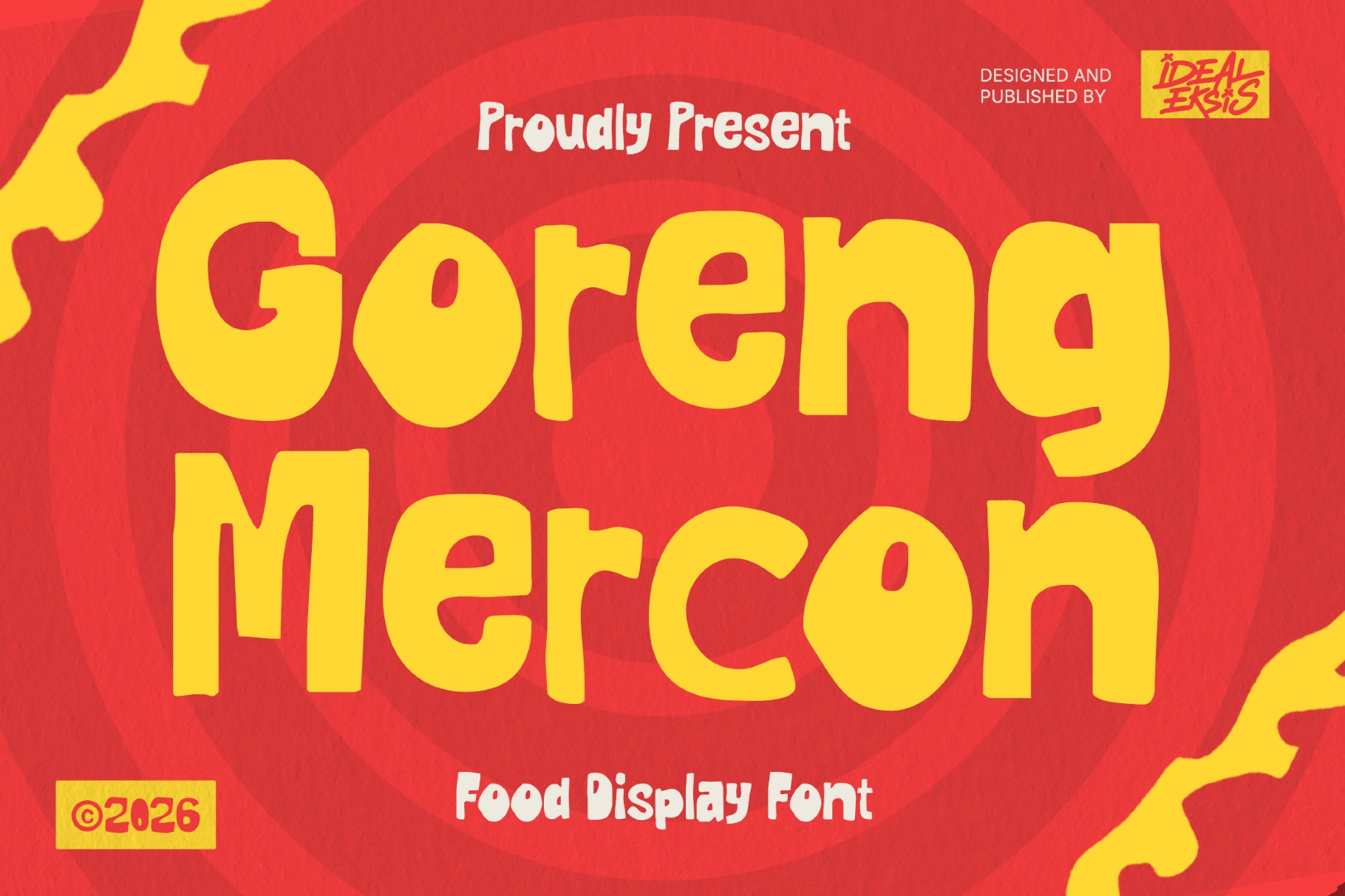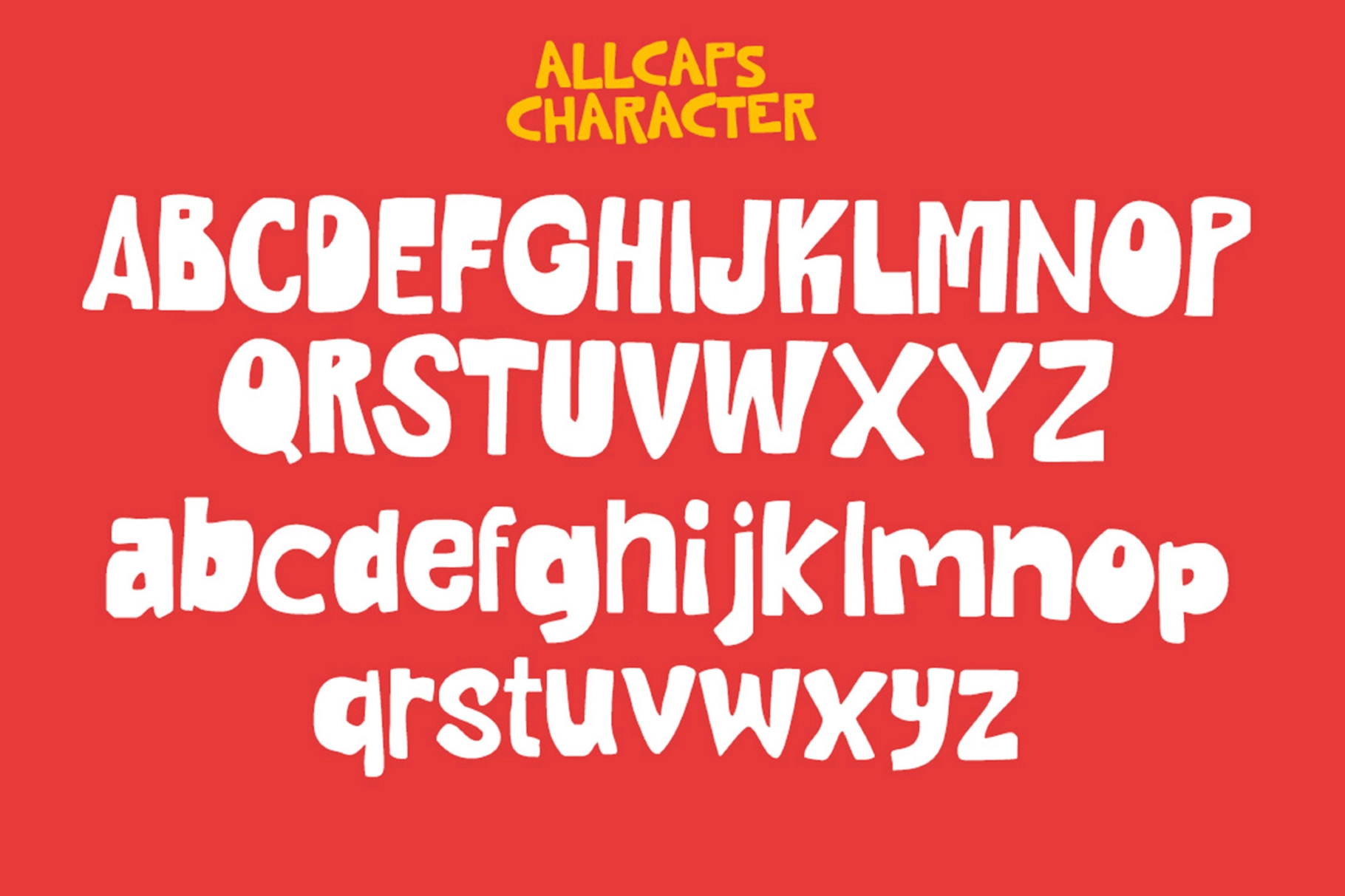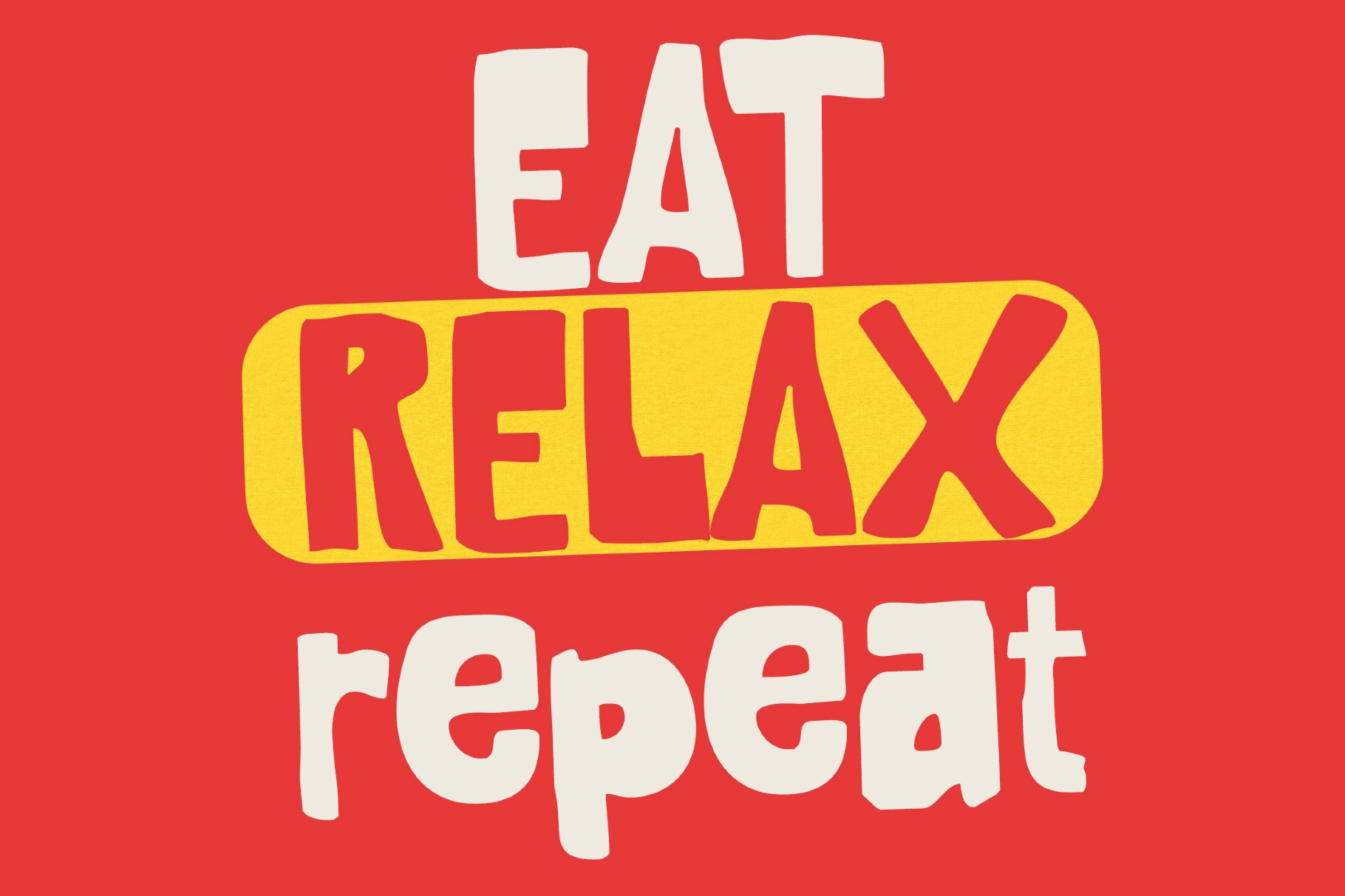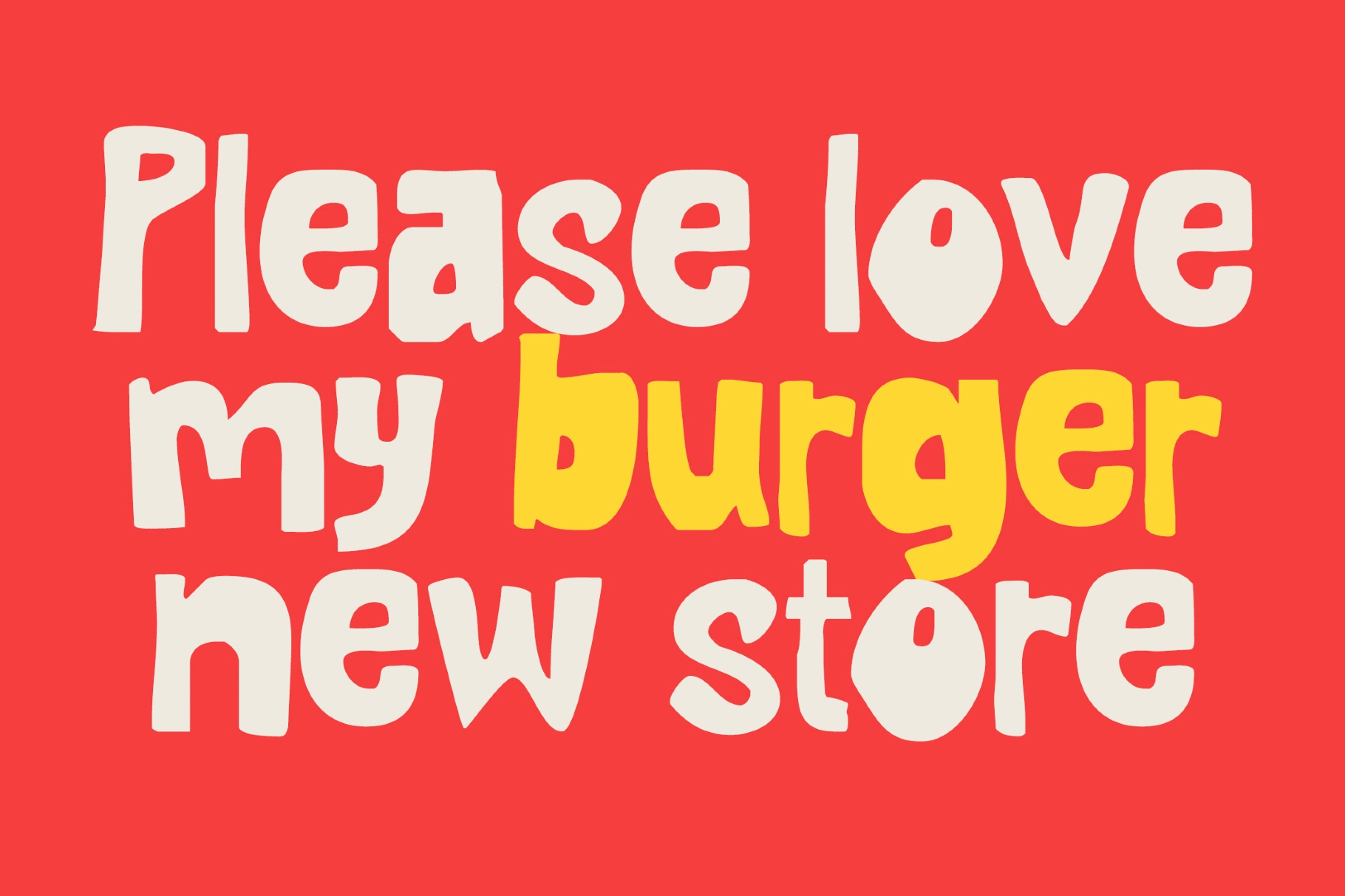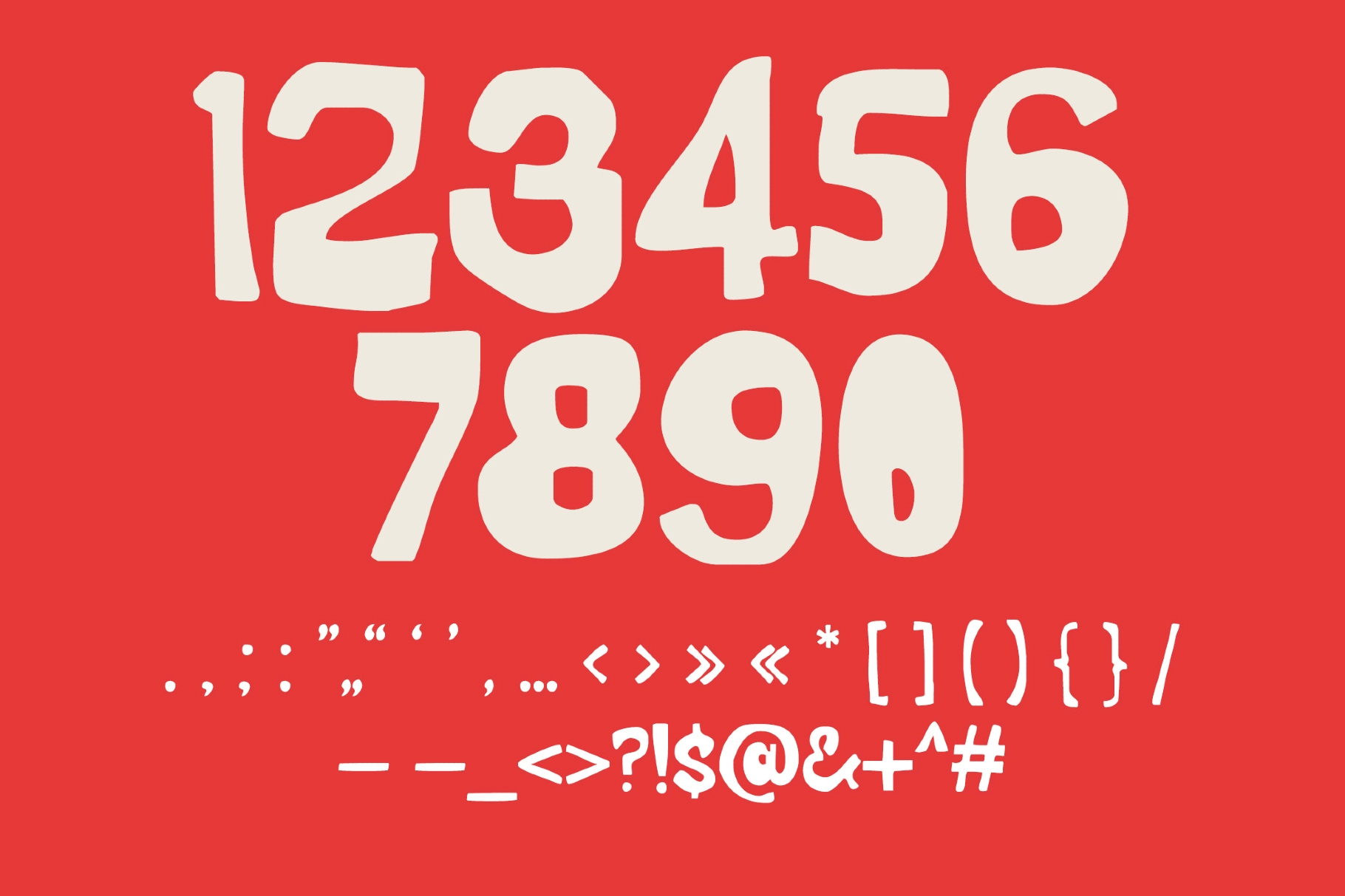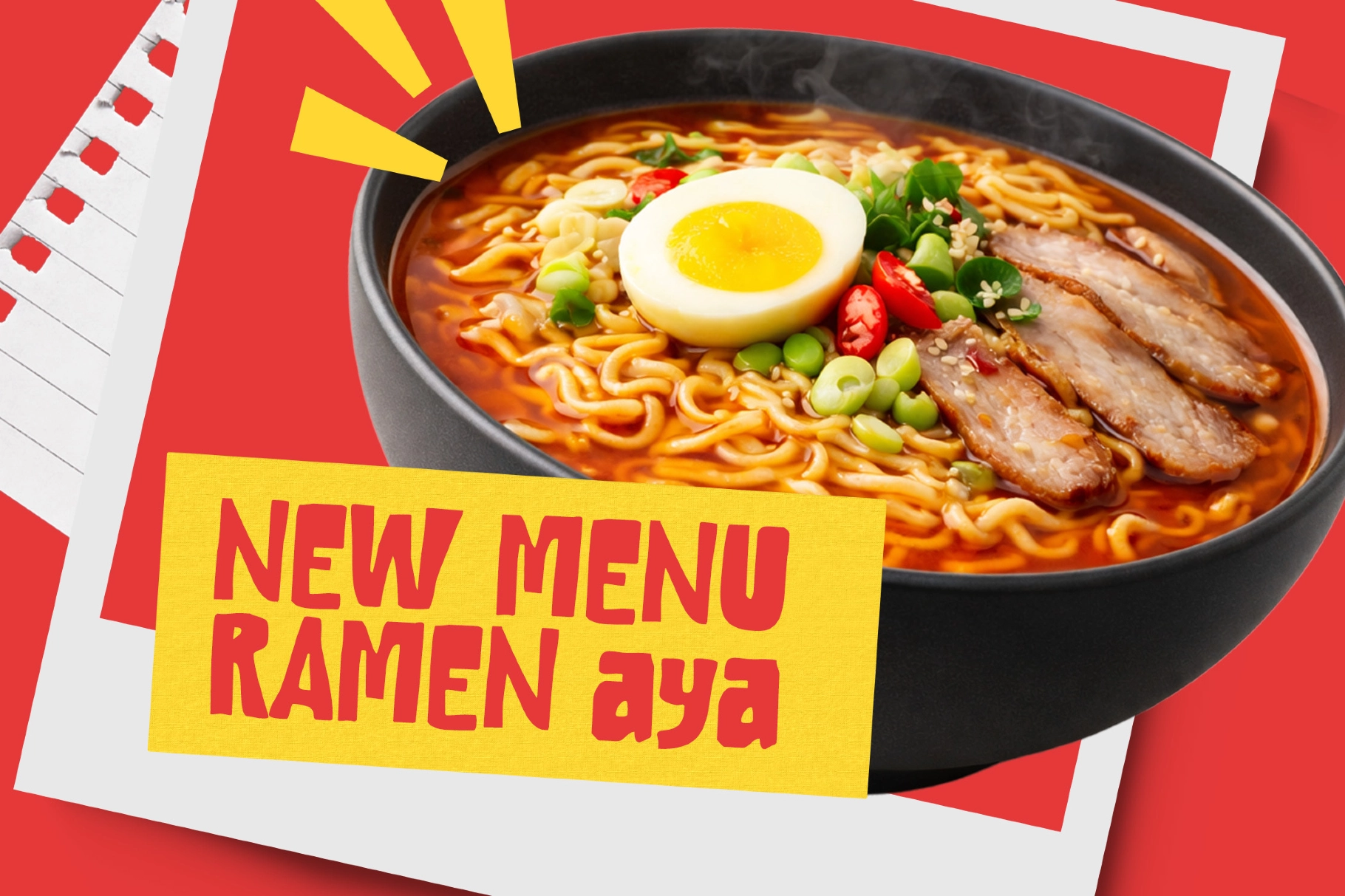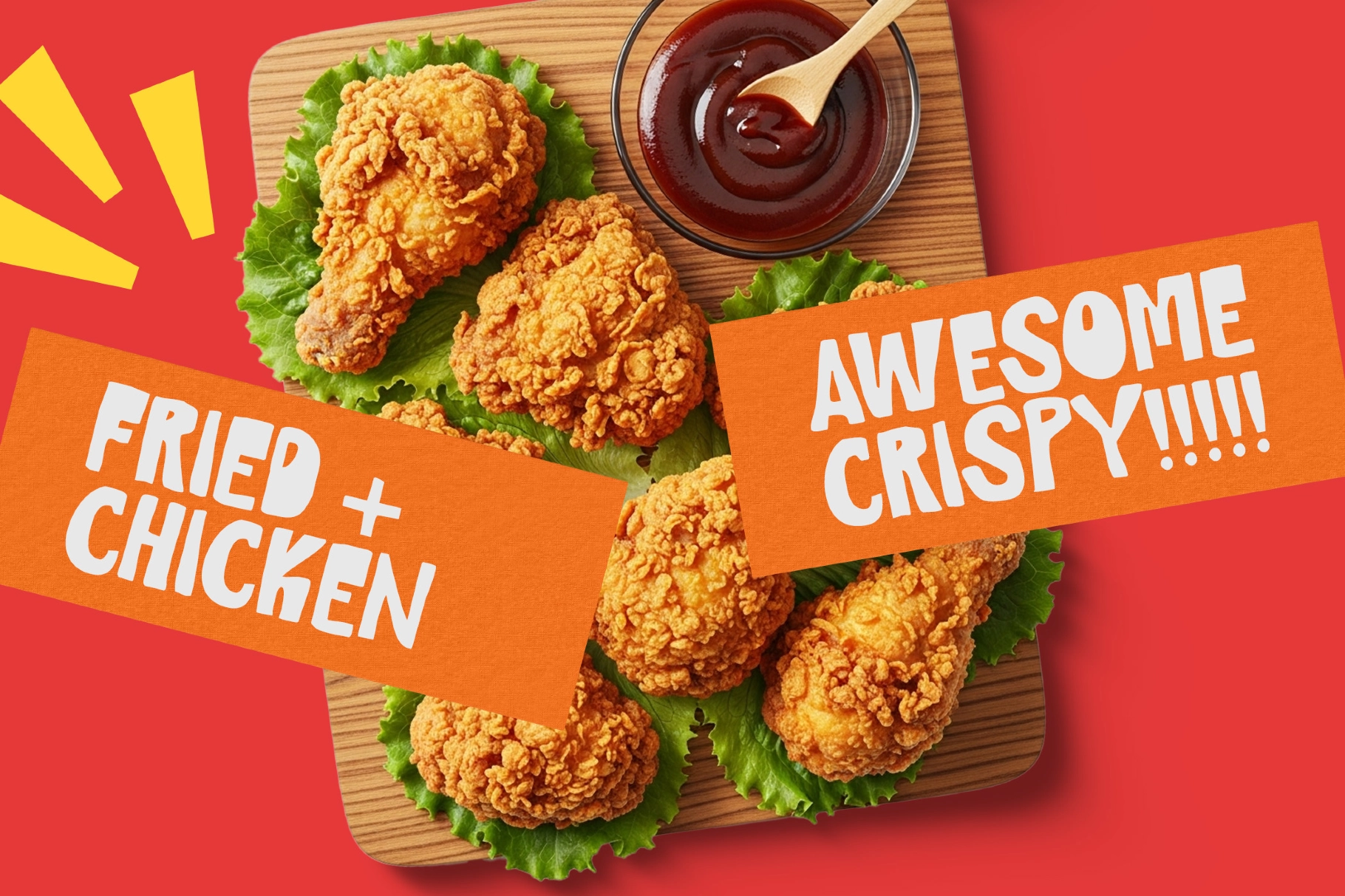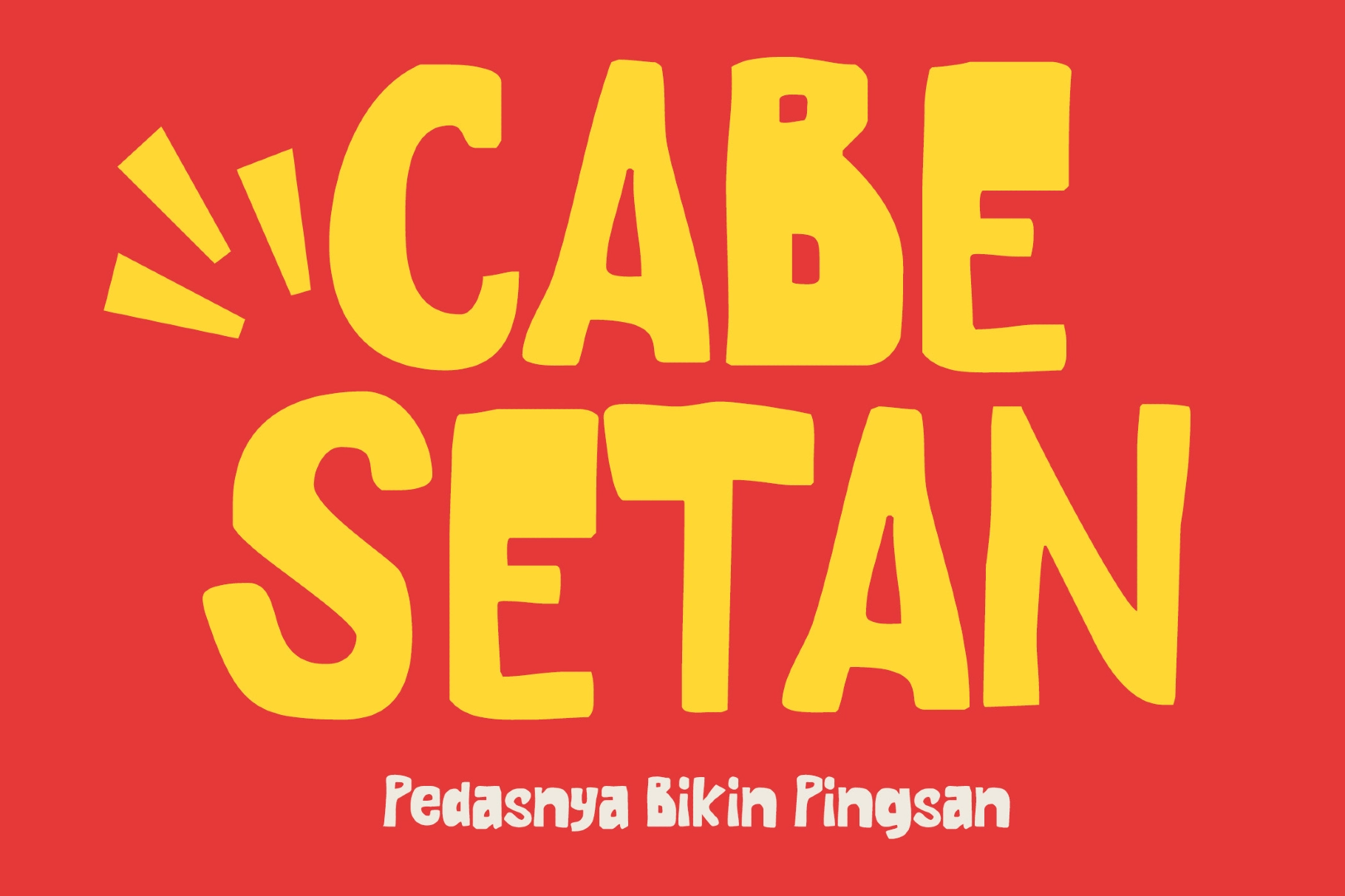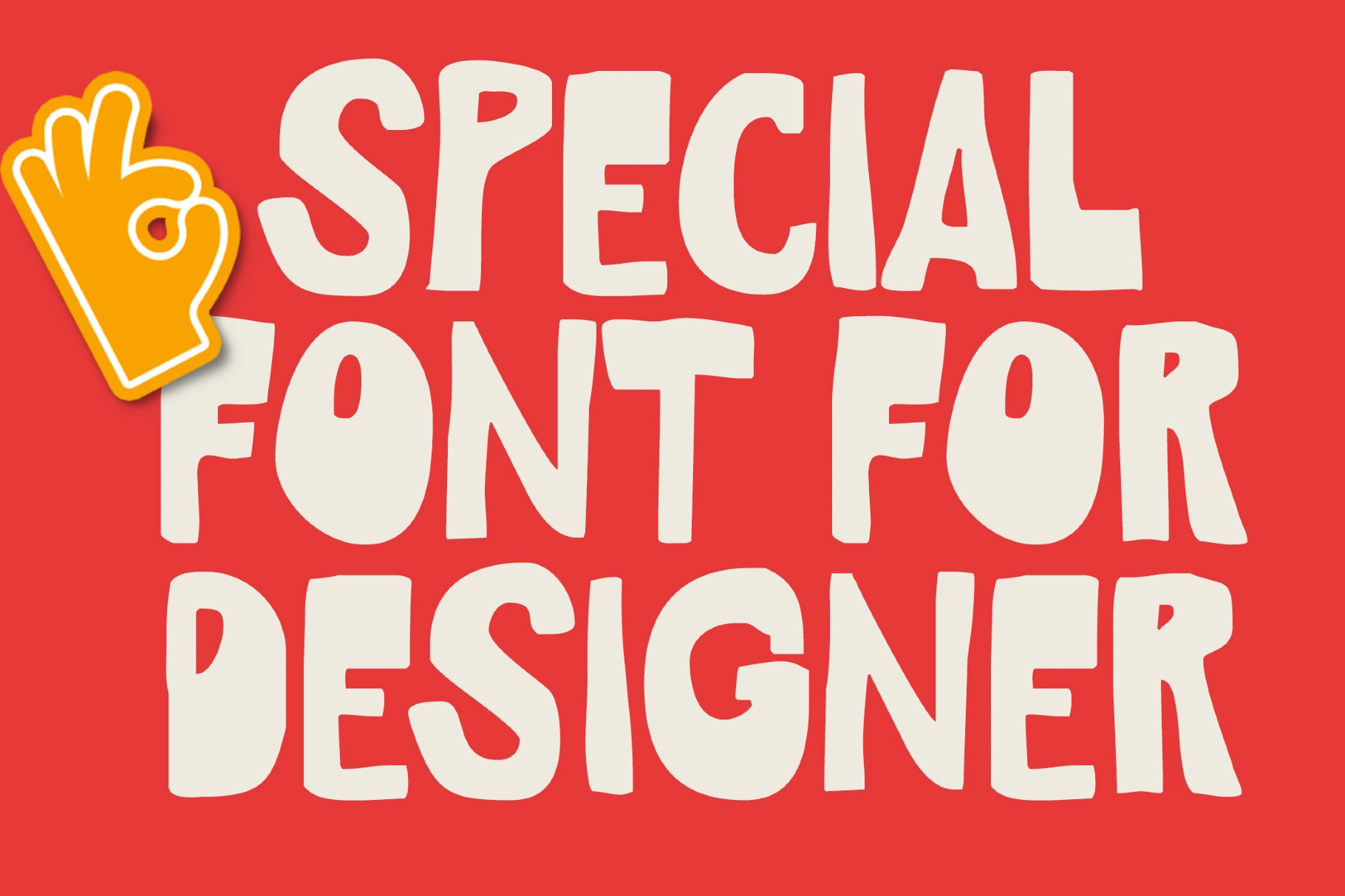
Goreng Mercon - Playful Display Font
Goreng Mercon
Goreng Mercon – Playful Display Font is a playful display typeface with bold, chunky letterforms and a hand-crafted feel that instantly brings energy and warmth to your designs. Its rounded shapes and slightly irregular strokes create a friendly, approachable look—perfect for projects that need a fun and expressive personality.
Designed with food-inspired branding in mind, this font works especially well for menus, packaging, and social media visuals. Whether you're building a café identity or creating eye-catching promotional graphics, it delivers a lively and memorable typographic style.
Uppercase and lowercase letters
Alternate characters
Numerals and punctuation